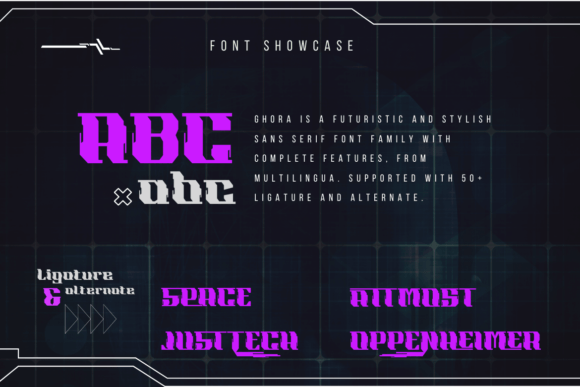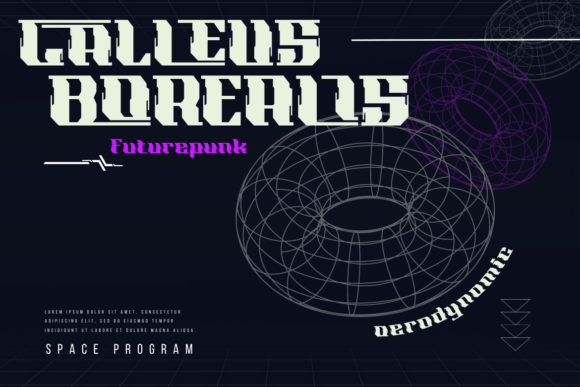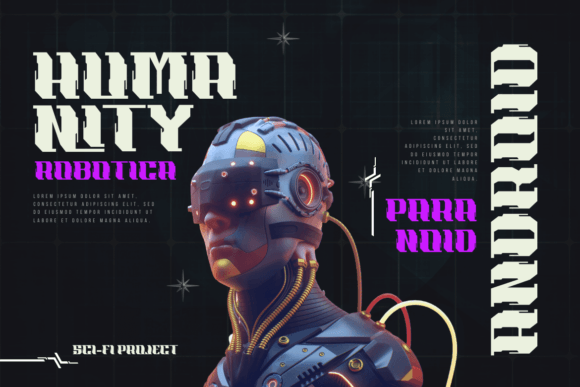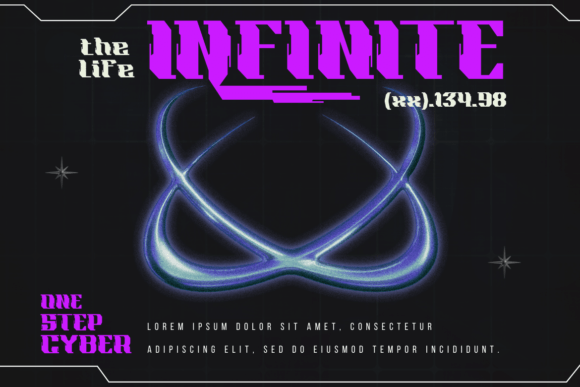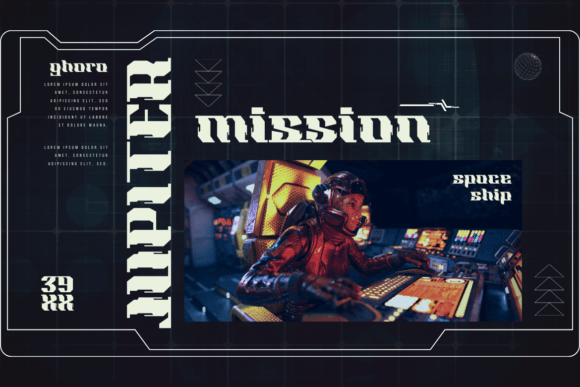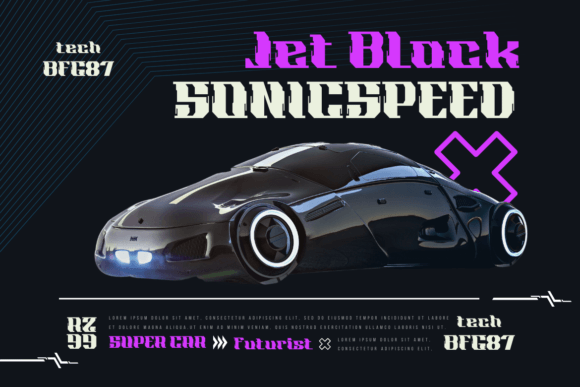
Unleash the Future: Introducing Ghora Font, Your Gateway to Cyberpunk Elegance
In the realm of design, staying ahead of the curve is paramount. As a designer or craftsperson, you’re constantly on the lookout for innovative elements that can elevate your projects and set them apart in a crowded market. If you’re aiming to infuse your creations with a dash of cyberpunk flair, look no further. We’re thrilled to introduce Ghora Font, the latest addition to our collection of cutting-edge typefaces. This futuristic font is meticulously designed to bring a unique edge to your business, making it stand out with an unmistakable cyberpunk vibe.
The Essence of Ghora Font
Ghora Font is not just another typeface; it’s an experience. Crafted with precision and a keen eye for detail, this font embodies the essence of cyberpunk aesthetics. Its futuristic look is captivating, designed to resonate with the avant-garde spirit that defines the cyberpunk genre. Whether you’re working on sci-fi-themed logos, games, movies, posters, designs, or promotional publications, Ghora Font is the perfect companion to bring your vision to life.
One of the standout features of Ghora Font is its versatility. Its unique design allows it to seamlessly integrate into a wide array of projects. Imagine being able to create striking logos that capture the essence of a futuristic world, or crafting posters that leap off the page with their cyberpunk charm. With Ghora Font, the possibilities are endless. It’s not just a font; it’s a tool that unlocks a new dimension of creativity, enabling you to push the boundaries of conventional design.
PUA Encoding: Easy Access to Glyphs and Ligatures
Understanding the importance of ease of use, Ghora Font comes with PUA (Private Use Area) encoding. This feature means that accessing the amazing glyphs and ligatures is straightforward, allowing you to incorporate intricate details into your designs without a hitch. The PUA encoding ensures that you can make the most of the font’s extensive character set, including alternative letters, symbols, and ligatures, to add a personalized touch to your projects.
Why Choose Ghora Font?
So, why should Ghora Font be your go-to choice for your next project? Here are a few compelling reasons:
- Unique Cyberpunk Aesthetic: Ghora Font offers a distinctive look that’s hard to find elsewhere, ensuring your projects stand out.
- High Versatility: Suitable for a wide range of applications, from digital media to print.
- User-Friendly: With PUA encoding, using the extensive character set is simple and efficient.
- Futuristic Appeal: Perfect for projects that require a modern, forward-thinking vibe.
Tips for Using Ghora Font
To maximize the impact of Ghora Font, consider the following tips:
- Experiment with Sizes: The font’s details shine at larger sizes, but it’s also effective in smaller applications.
- Play with Ligatures: Use the ligatures to add a dynamic, connected feel to your text.
- Combine with Images: Pair Ghora Font with futuristic imagery to amplify the cyberpunk effect.
- Limit Your Color Palette: Stick to a bold, contrasting color scheme to enhance the font’s futuristic appeal.
In the quest for uniqueness and innovation, Ghora Font emerges as a game-changer. Its cyberpunk theme, futuristic design, and user-friendly features make it an indispensable asset for designers and crafters aiming to leave a mark. Whether you’re delving into sci-fi projects or simply looking to infuse your work with a modern edge, Ghora Font is your gateway to unparalleled creativity. Embrace the future of design with Ghora Font and make your projects shine like never before.